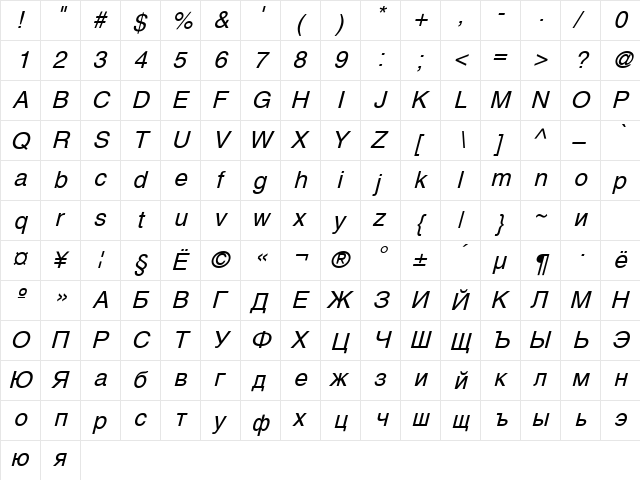
AGHlvCyrillic Normal-Italic
Design Context for AGHlvCyrillic Typeface
AGHlvCyrillic is a composed and adaptable typeface that performs quietly and consistently across a wide range of design contexts. Its italic angle brings a sense of urgency and motion to the letterforms.
Pro Tip: Use AGHlvCyrillic for emphasis, pull quotes, and subheadings where its slanted energy can add rhythm to the layout.